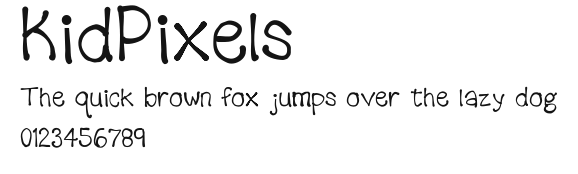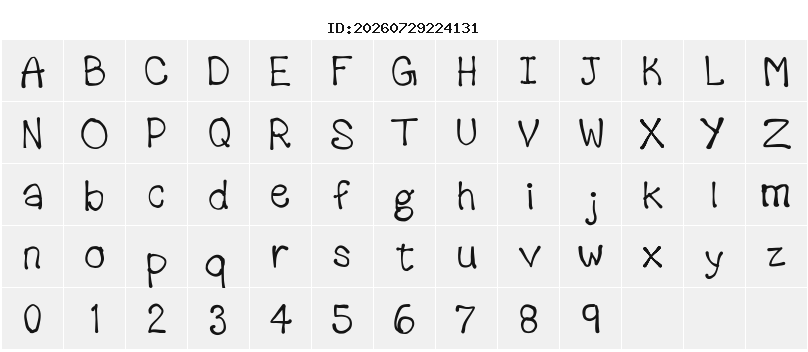
• Font Name: KidPixels
• Full Font Name: KidPixels
• Designer: Autonomous Spirit (LLJ)
• Manufacturer: LLJohnson
About KidPixels.ttf
KidPixels.ttf is a modern, elegant sans-serif font designed for ultimate readability and visual harmony. Perfect for branding, headlines, web design, and print materials.